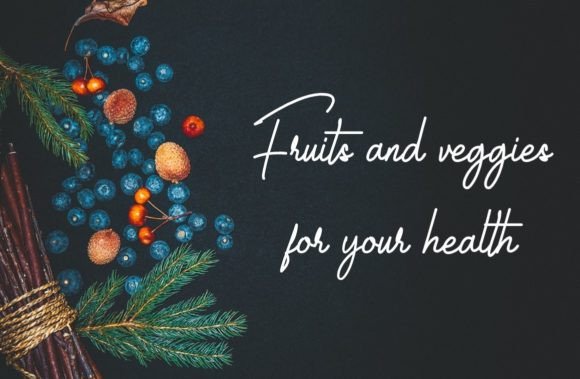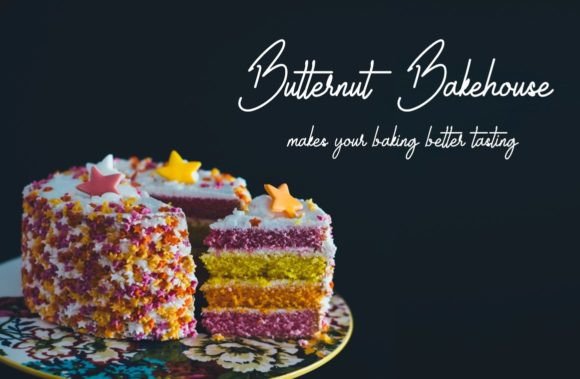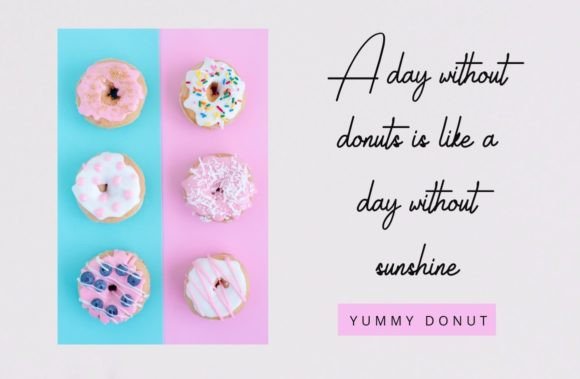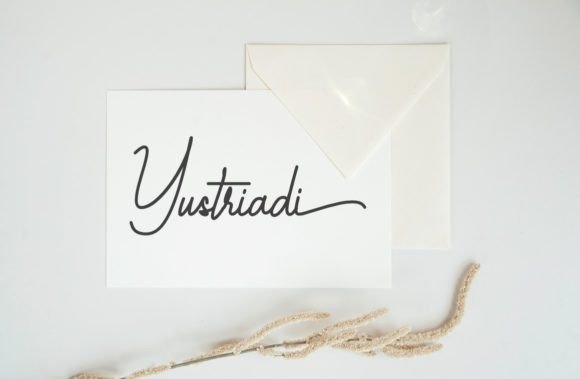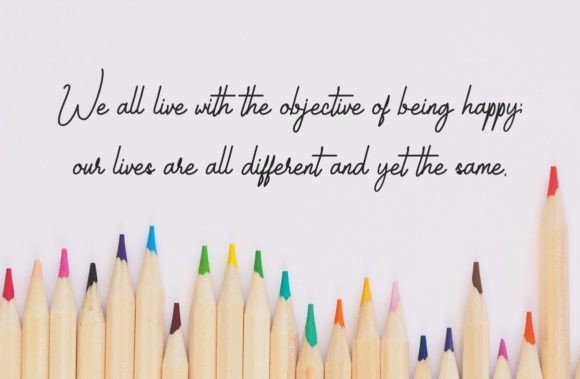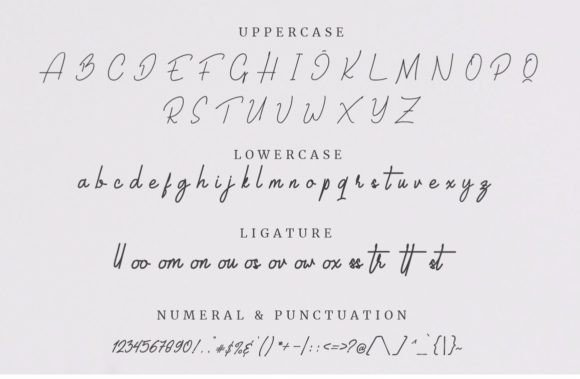
The Sweet Charm of Boosting Font: A Designer’s Delight
I’ll never forget the time I was working on a project for a client who wanted a elegant and dainty look for their brand. I spent hours scouring the internet for the perfect font, but nothing seemed quite right. That was until I stumbled upon Boosting Font. With its sweet and delicate swashes, it was love at first sight! In this article, I’ll share my experience with Boosting Font, its features, and how to make the most of it in your designs.
An Honest Review of Boosting Font
- ✨ Elegant and dainty handwritten look that’s perfect for crafty ideas
- ✅ Delicate swashes that add a touch of sophistication
- 💫 Highly versatile and can be used for letterheads, titles, stationery, and more
- 🎨 Great for designers, crafters, and creative hobbyists
While Boosting Font is a beautiful font, there are a few things to keep in mind:
- ⚠️ Some swashes may not work well at smaller font sizes
- 🤔 Limited availability of certain glyphs or stylistic alternates in certain platforms
The Story Behind Boosting Font
Boosting Font was designed with the intention of creating a elegant and dainty handwritten font that would appeal to crafty ideas. The designer wanted to create a font that would be perfect for letterheads, titles, and stationery. With its sweet and delicate swashes, Boosting Font is sure to add a touch of sophistication to any design.
| Font Name | Boosting Font |
| Author | Mr. Type |
Q: What is Boosting Font?
A: Boosting Font is a elegant and dainty handwritten font that features sweet and delicate swashes.
Q: What can I use Boosting Font for?
A: Boosting Font is perfect for crafty ideas, such as letterheads, titles, stationery, and more.